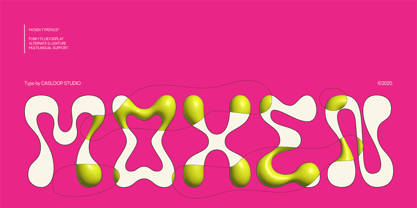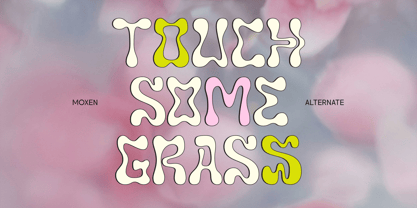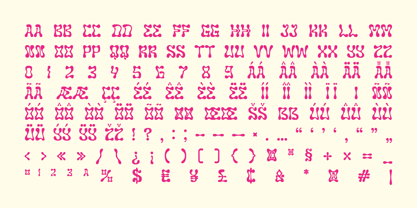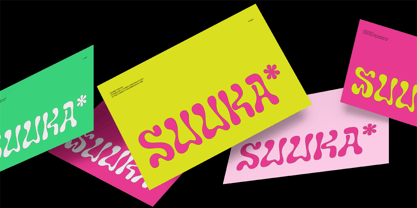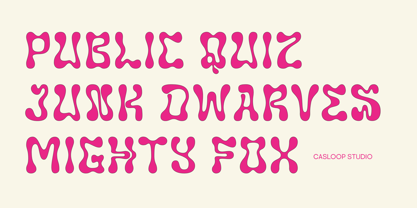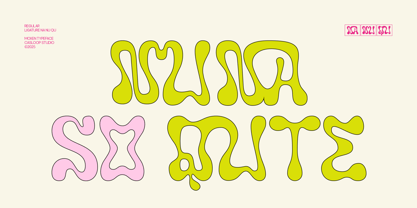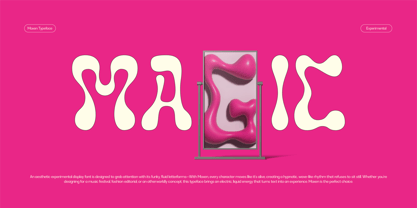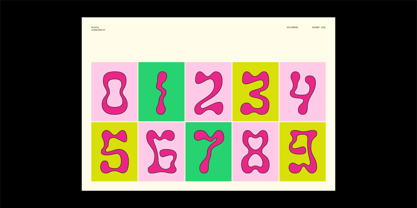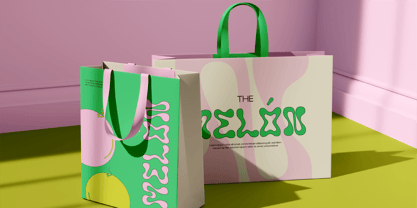
Moxen
por Casloop Studio
La familia tipográfica Moxen fue diseñada por Wantara Putra y publicada por Casloop Studio. Moxen contiene 1 estilos.
Moxen Typeface — The Playful, Liquid-Inspired Display Font Moxen is an eccentric and experimental display typeface that captures the fluidity of creativity. Designed for modern-day creators who seek to make a statement, Moxen offers hypnotic, wave-like letterforms that bring a unique edge to your designs. Its organic, liquid-inspired shapes deliver an artistic balance of fun and sophistication, making it ideal for bold design projects across branding, editorial, and digital media.
Key Features of Moxen
Fluid & Funky Shapes: The wavy, free-flowing forms make Moxen a standout choice for experimental and bold designs.
Alternates & Ligatures: Packed with stylistic alternates and custom ligatures to give you endless creative possibilities.
Multilingual Support: Supports a wide range of languages, including accented characters, ensuring global usability.
Attention-Grabbing Design: Bold, fluid shapes that are perfect for creating impactful headlines and artistic visuals.
Moxen is designed to make your work unforgettable. This liquid-inspired display typeface combines bold, organic letterforms with a playful and experimental design, creating a visual rhythm that feels alive. Whether it’s a bold headline, a quirky poster, or branding that stands out, Moxen brings fun, energy, and character to every project. Perfect for branding, packaging design, posters, and social media content, Moxen’s fluid shapes, stylistic alternates, and custom ligatures make it a versatile choice for high-impact visuals. Its multilingual support ensures your designs resonate with a global audience, while its energetic and vibrant aesthetic transforms your projects into unforgettable visual experiences.